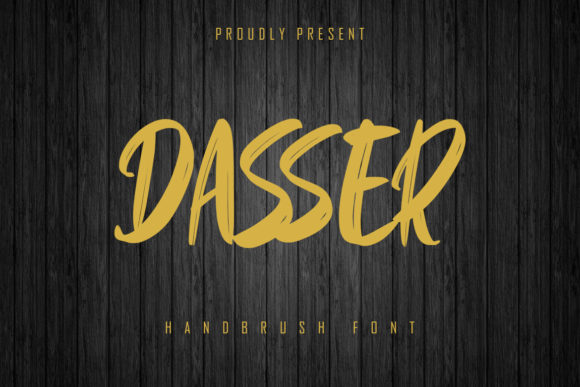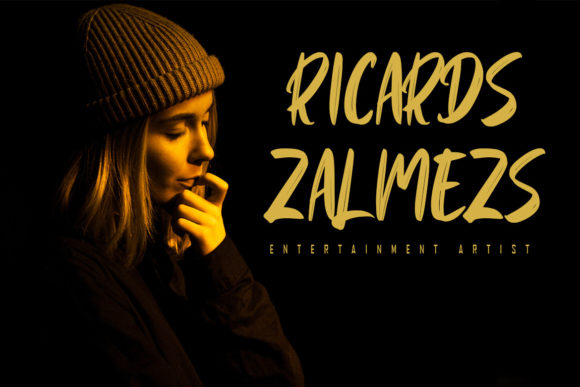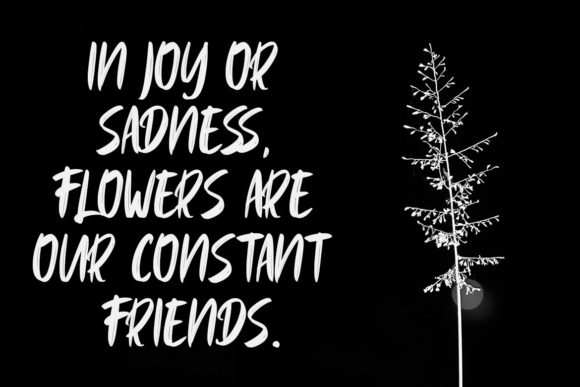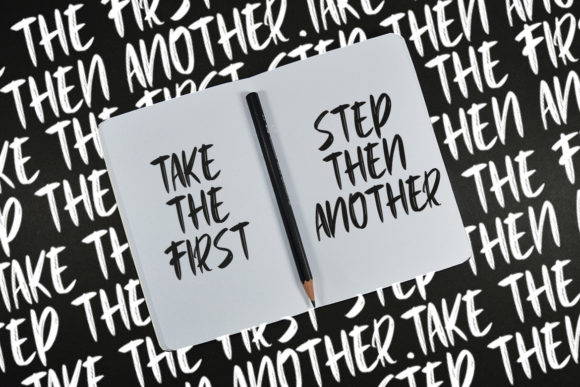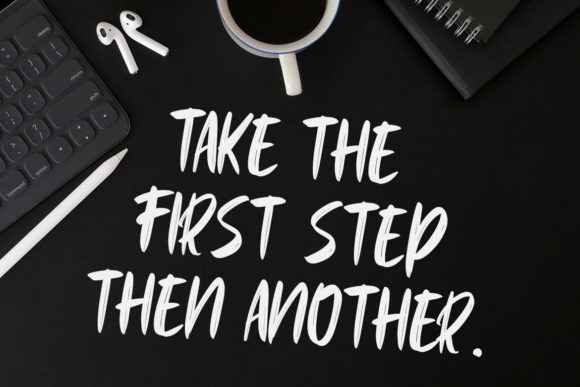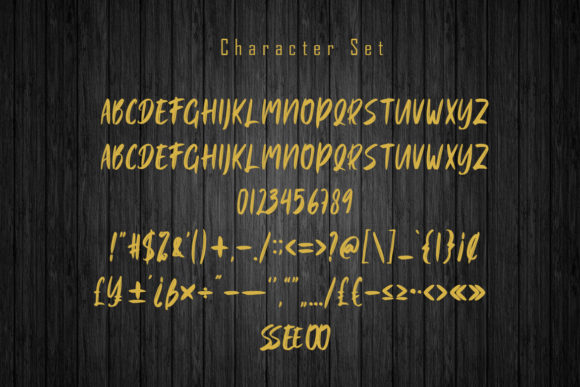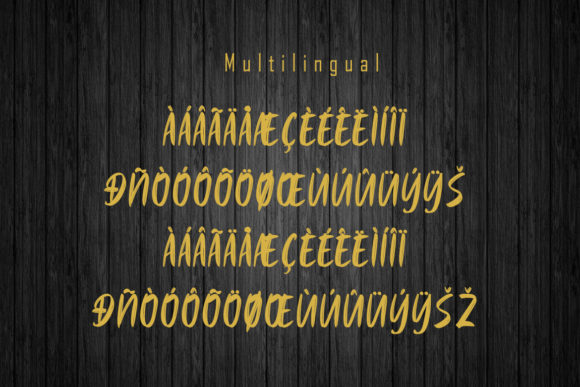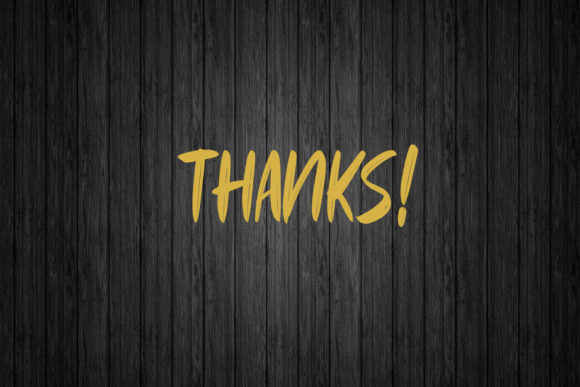
Dasser Font
About Dasser Font
Dasser is a modern and brushed handwritten font, crafted to give your headlines and logotype projects a stylish touch. This font reads as strong, confident, and dynamic and can add tons of urban character to your designs.